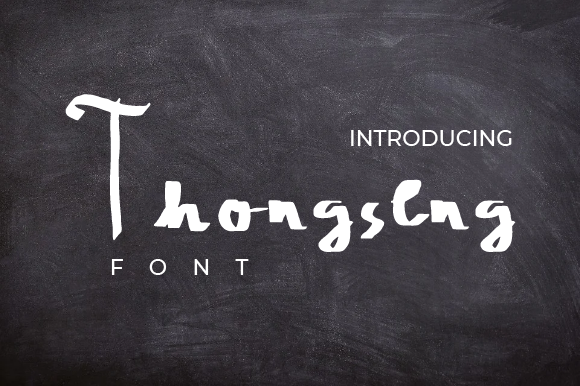
Thongseng Font: Cute Handwritten Script for Makers
There is a specific moment in every product design session where the layout feels technically correct but emotionally flat. Last Tuesday, while preparing a new batch of soy candle labels for my shop, I hit that exact wall. The minimalist sans serif I usually relied on looked clean but sterile, lacking the warmth that defines handmade goods. That was when I decided to test Thongseng, a typeface that immediately shifted the mood of my entire workspace. As I typed out "Lavender & Sage," the letters didn't just sit on the screen; they danced with a casual, approachable rhythm that perfectly matched the artisanal nature of the product. For crafters and sellers, finding the right typography is often about bridging the gap between professional polish and personal touch, and this font manages that balance effortlessly.
Thongseng for Candle Labels and Artisan Packaging Design
When applying Thongseng to physical product packaging, this Script Handwritten style proves its worth through legibility and charm. In the world of handmade candles, soaps, and boutique skincare, the label is often the first tactile interaction a customer has with your brand. I found that Thongseng works exceptionally well for product names and short descriptive phrases because its open counters and relaxed baseline prevent the text from feeling cluttered on small surfaces. Unlike tighter, more ornate calligraphy scripts that can become illegible when scaled down for a 2x2 inch sticker, Thongseng maintains its friendly feel even at smaller point sizes. This is crucial for compliance labels or ingredient lists where you might want to use a supporting sans serif, while reserving Thongseng for the hero text that catches the eye on a crowded market table or digital listing photo.
The visual personality of this font adds immediate perceived value to simple packaging. During my mockup phase, I printed test labels on both matte vinyl and textured kraft paper. On the matte surface, the ink held crisp edges, showcasing the font’s modern typography roots. On the kraft paper, the slightly rougher texture interacted beautifully with the handwritten strokes, enhancing the organic, earthy aesthetic that many candle buyers seek. If you are designing packaging, consider using Thongseng for the scent name or a short tagline like "Hand-poured with Love," while pairing it with a clean, geometric sans serif for the weight and safety warnings. This contrast ensures your packaging looks professionally designed yet authentically crafted, avoiding the generic look of mass-produced goods.
Using Thongseng for Wedding Invitations and Greeting Cards
Creating stationery requires Fonts that convey emotion without sacrificing readability, and Thongseng shines in this delicate space. While testing layouts for a friend’s bridal shower invitation, I needed a script that felt intimate and joyful rather than stiffly formal. Many traditional wedding fonts can feel intimidating or overly serious, but Thongseng brings a cute and casual vibe that suits modern celebrations perfectly. It worked beautifully for the couple’s names and the event title, creating a focal point that felt inviting rather than demanding. The letterforms have enough bounce to suggest movement and happiness, which is exactly the tone you want to set before guests even open the envelope.
For greeting cards and printable wall art, this font offers versatility across different themes. I experimented with using it for a "Happy Birthday" card design aimed at a younger demographic, and the playful stroke variation made the sentiment feel genuinely hand-lettered rather than digitally stamped. When designing for print, pay close attention to tracking and leading. Because Thongseng has natural swashes and varying x-heights, tightening the tracking too much can cause characters to collide awkwardly. Giving the text room to breathe preserves its handwritten integrity. For DIY projects involving watercolor backgrounds or floral illustrations, Thongseng acts as a grounding element; its solid, confident strokes provide structure against soft, painterly textures, ensuring the text remains the star of the composition.
Thongseng for Instagram Graphics and Social Media Branding
Social media content creation demands Fonts that stop the scroll, and Thongseng is optimized for digital engagement. Whether you are looking for fonts for Instagram stories or quote templates for Pinterest, this typeface translates exceptionally well to screens. I recently redesigned my shop’s highlight covers and promotional story templates using Thongseng for the key headlines. The result was a cohesive brand identity that felt consistent with my physical products. On mobile devices, where screen real estate is limited, the font’s bold, friendly characteristics ensure that text overlays on photos remain readable without needing excessive drop shadows or background boxes. It cuts through visual noise effectively, making it ideal for announcing sales, sharing behind-the-scenes clips, or highlighting customer reviews.
Beyond static posts, Thongseng is a powerful asset for video content and Reels. When adding text overlays to process videos or packing orders, the casual handwritten style reinforces the "maker" narrative. It signals to the viewer that a real person is behind the account, fostering connection and trust. For digital downloads and template sellers, including Thongseng in your editable Canva or Photoshop templates can significantly increase their appeal. Buyers are constantly searching for assets that don't look overused, and this font’s unique blend of cuteness and sophistication fills a specific niche in the creative market. Just remember to verify the commercial licensing terms if you plan to include the font file itself in a product for resale, or if you are using it to create end-products for sale.
Cutting Machine Compatibility and Readability for DIY Projects
For Cricut and Silhouette users, selecting Script Handwritten fonts that cut cleanly is a practical necessity, and Thongseng performs reliably in this area. I tested the font for vinyl decals intended for coffee mugs and tote bags, focusing on how the software interpreted the curves. Some handwritten fonts have thin hairlines that tear during weeding or fail to adhere properly to curved surfaces. Thongseng, however, possesses a sturdy stroke weight that survives the cutting process intact. The connections between letters are smooth and continuous, reducing the number of individual pieces you need to weed and transfer. This makes it an excellent choice for beginners or for high-volume production runs where efficiency matters as much as aesthetics.
When using this font for merchandise like shirts or signs, scale is your best friend. While it looks adorable small, Thongseng truly sings when given space to display its character. For a farmhouse-style wooden sign, I stretched the font horizontally by about 5% to give it a wider, more relaxed stance that complemented the rustic wood grain. Conversely, for detailed planner stickers or journal headers, keeping the size moderate prevents the ink from bleeding on porous paper. Always do a test cut or test print before committing to a full batch. Check for any overlapping nodes in your cutting software that might cause the blade to double-back, although Thongseng is generally well-digitized. By understanding the physical limitations and strengths of this typeface, you can avoid wasted materials and ensure your final DIY projects look as polished as your digital mockups.